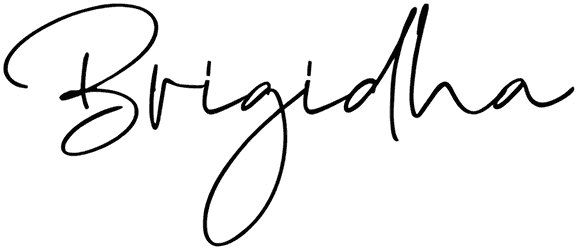
Brigidha Font
If you are working on a distinct design, having an elegant and fashionable face, this offer can help promote it. As a handwritten font, Brigidha has a fine pen-lettered form that can convey a modern and unique vibe. With an almost full character backup, this calligraphy font would be harmonized with any novel designs, for instance, business cards, apparel, planners, movies, and so forth.